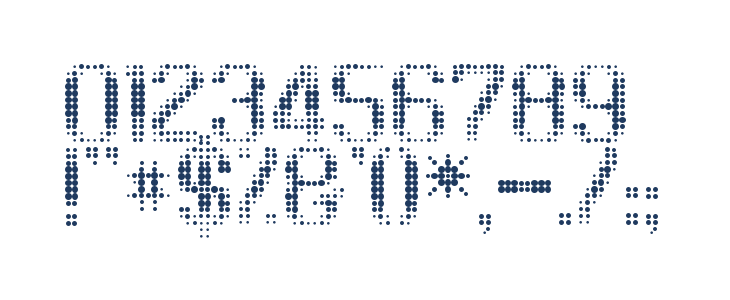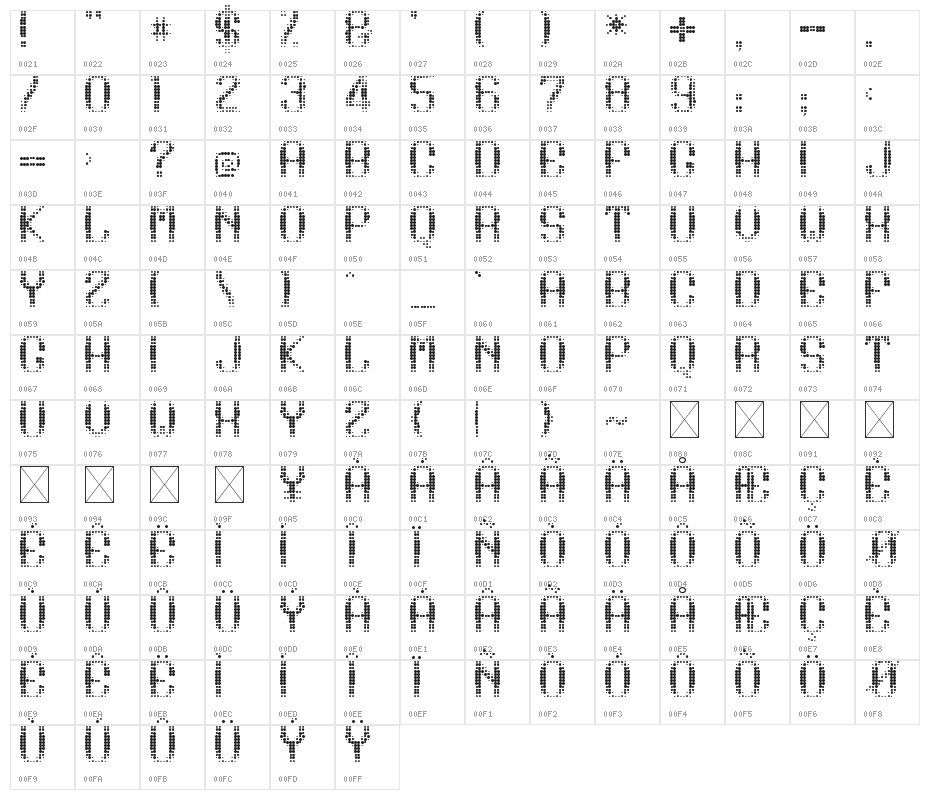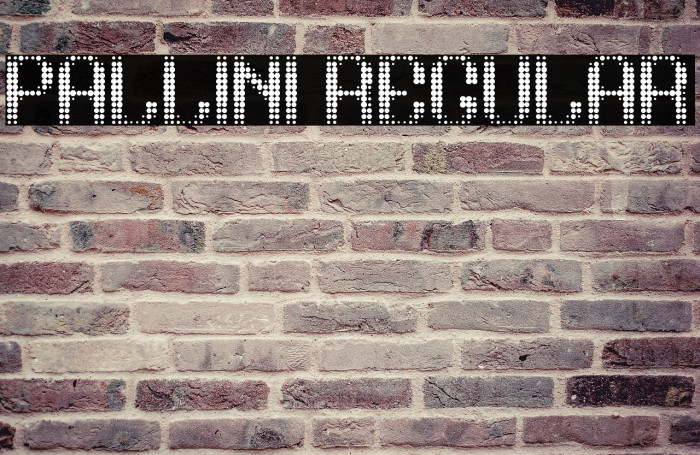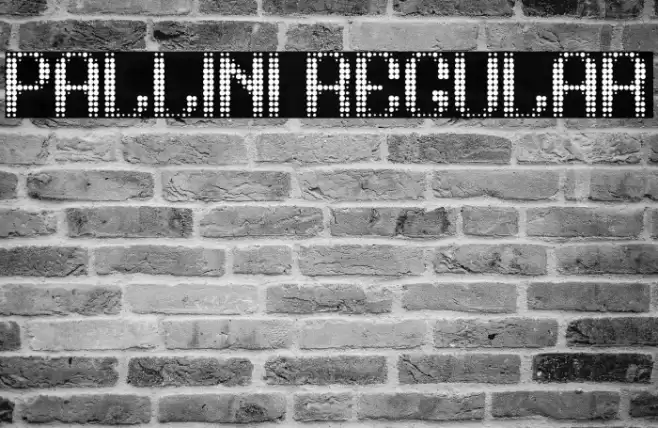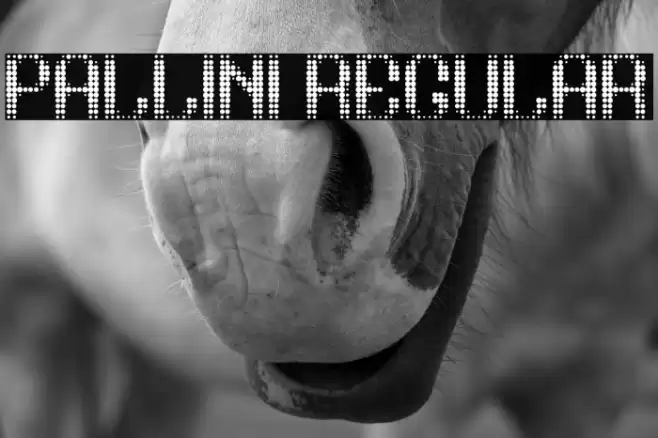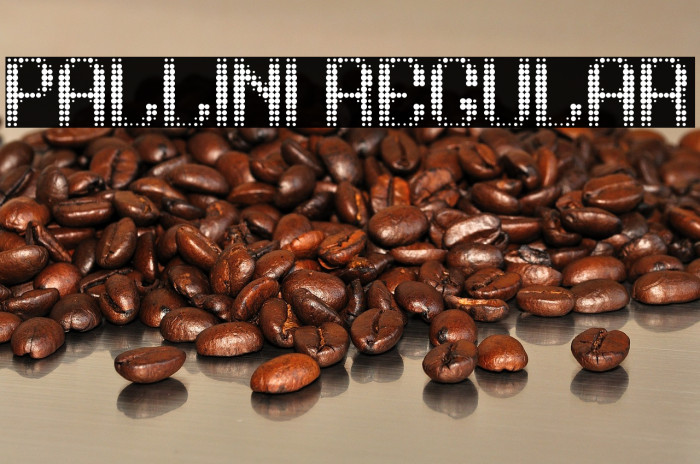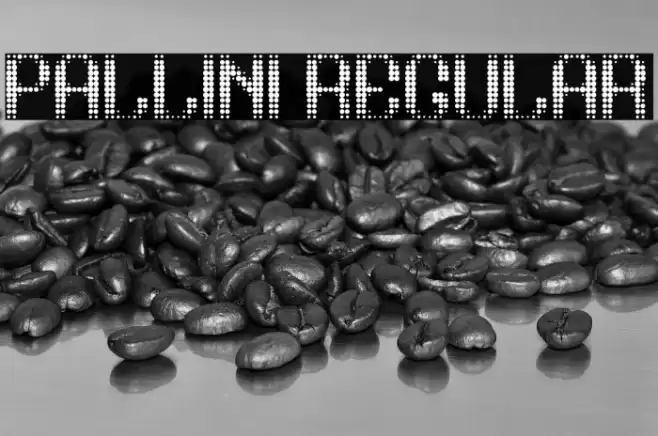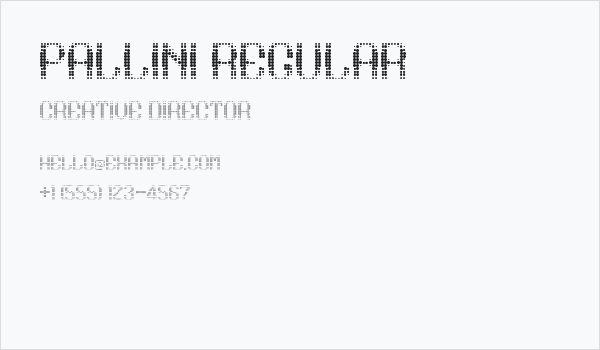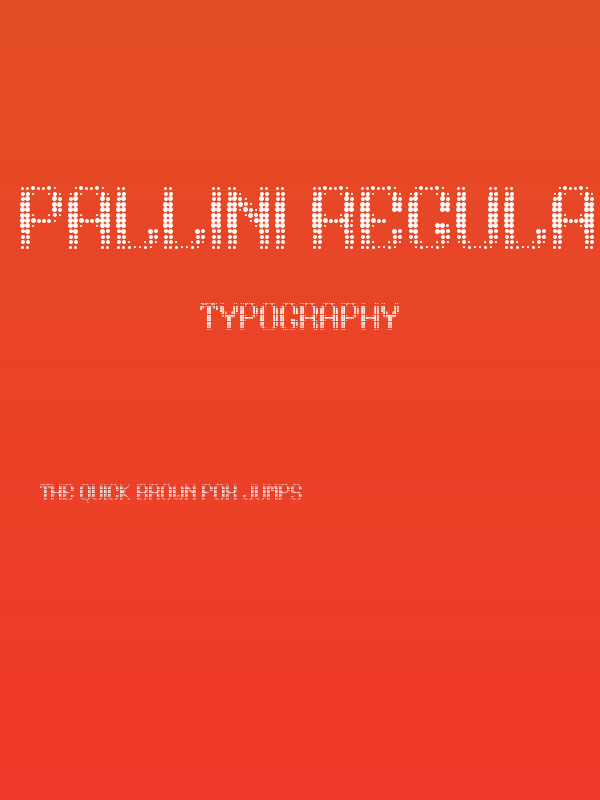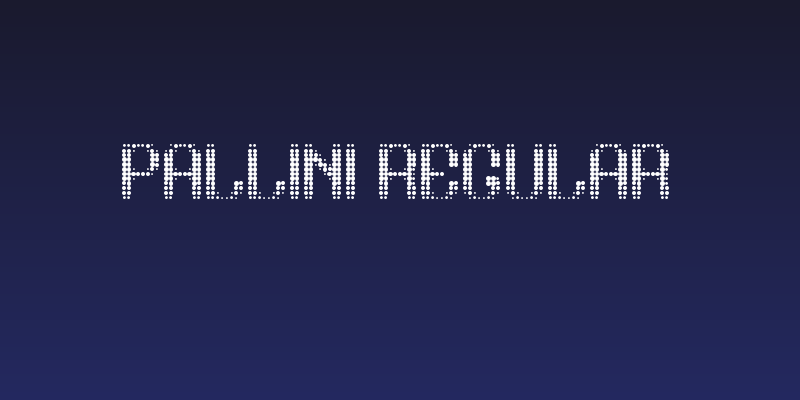
pallini Regular Font
pallini Regular Description
This font features a unique dotted pattern that forms each character, giving it a digital and modern appearance. The characters are constructed from a grid of evenly spaced dots, creating a pixelated effect that is both eye-catching and distinctive. The uppercase and lowercase letters maintain a consistent style, with rounded edges formed by the dots. Numbers and special characters follow the same design principle, ensuring uniformity across all elements. This font is particularly suitable for projects that require a futuristic or tech-inspired aesthetic.
| Proposed Projects | Ideal for digital art, tech-themed designs, modern posters, and innovative branding projects. |